From Retro Vibes to Quiet Luxury: 12 Must-Have Serif Fonts for Creators
Serif fonts aren’t just a nod to tradition; they’re a time-tested tool for perfect legibility. Their distinctive «tails» instantly separate letters, even when you’re skimming the text in a hurry. But don’t confuse classic with boring! Modern
serif fonts come in a wide variety: elegant, transitional, or boldly geometric. In this collection, we’ll prove that the right serif can add a truly prestigious touch to your design
1. Sparky Dream Serif Font
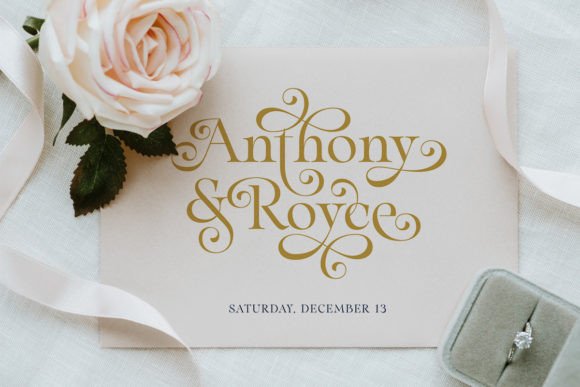
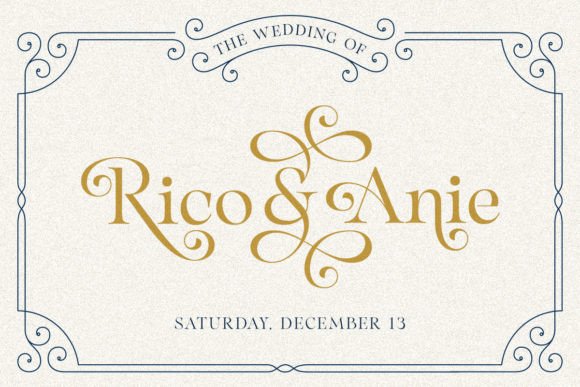
Sparky Dream Font
There is something undeniably romantic about a Serif Font that doesn’t just sit on the page but actually dances. Sparky Dream is exactly that—a timeless typeface that brings a high-end, editorial feel to any project. What really caught my eye are the graceful curly swashes; they add a layer of sophistication that standard serifs often lack.
In my opinion, this is the ultimate choice for wedding invitations or luxury branding where you want to convey «classic beauty» without feeling dated. It’s one of those Serif Fonts that feels equally at home on a high-end perfume bottle or a formal gala program. If you’re looking to elevate your work with an air of effortless elegance and sophistication, Sparky Dream is a versatile powerhouse that delivers every single time.
2. Olive & Citrus Font
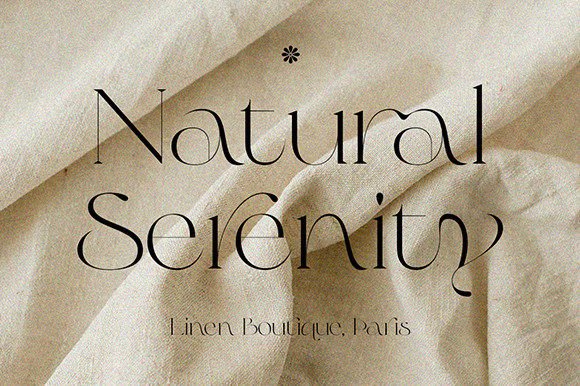
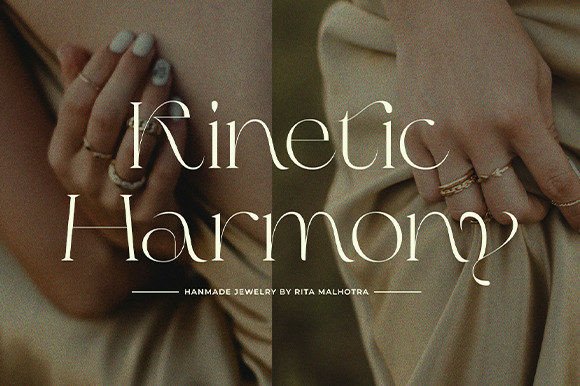
Olive & Citrus Font
If you are looking for a Serif Font that perfectly balances modern minimalism with classic high-fashion vibes, Olive & Citrus is a standout choice. This typeface feels incredibly «clean» yet expensive, making it a dream for branding designs, logos, and high-end magazines. The sharp, refined lines give it a professional edge, while the elegant curves keep it feeling approachable and stylish for social media posts.
What makes this one of the most user-friendly Serif Fonts in this collection is that it’s PUA encoded. This means you can easily access all those stunning glyphs and unique ligatures without needing specialized professional software. Whether you are designing a chic boutique logo or aesthetic packaging for a linen brand, Olive & Citrus provides that polished, «Parisian storefront» look effortlessly.
3. Milk and Honey Font
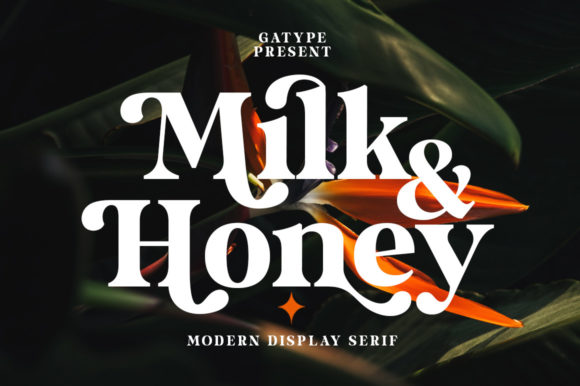
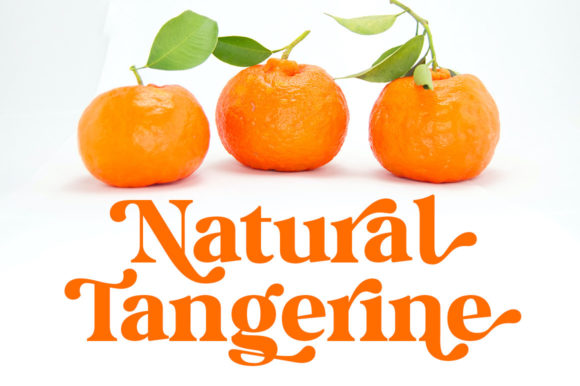
Milk and Honey Font
If you want a Serif Font that screams «modern retro,» Milk and Honey is the absolute gold standard. This is a bold, thick-lettered typeface that manages to feel incredibly trendy while keeping a foot in that nostalgic, 70s-inspired aesthetic. It’s the kind of font that does all the heavy lifting for you—just type out a word, and it already looks like a finished piece of art.
Like our previous favorite, this one is also PUA encoded, giving you full, easy access to all those juicy swashes and extra glyphs that make the letters look like they’re flowing into one another. It’s an incredibly versatile style that works perfectly for eye-catching T-shirt Designs, groovy branding, or even bold social media quotes that need to stop a scroll. If you’re looking to create something spectacular with a «bold and chunky» vibe, Milk and Honey is a must-have for your collection.
4. Montage serif Font
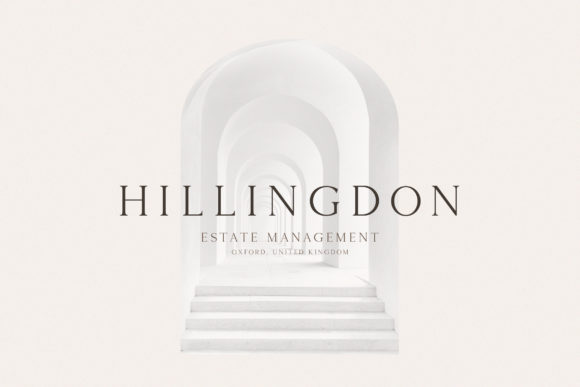
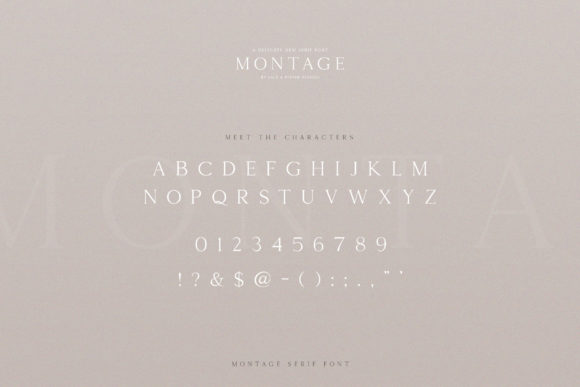
Montage Serif Font
If you are aiming for a look that is whisper-quiet yet incredibly powerful, Montage is the font you’ve been searching for. This is an elegant, authentic, and thin-lettered Serif Font that prioritizes white space and high-end aesthetics. While some serifs try too hard to be noticed, Montage commands attention through its sheer refinement and «less is more» philosophy.
What I love most about this typeface is how it immediately adds a «luxury spark» to any design project. It is the perfect fit for estate management branding, high-end architectural firms, or boutique hotel signage. Because the strokes are so delicate and thin, it creates a sense of airiness and prestige that thicker fonts simply can’t replicate. If your goal is to make a design feel expensive, authentic, and curated, Montage is the sophisticated tool you need in your arsenal.
5. Elegant Serif Font
Elegant Serif Font
True to its name, this Serif Font is the definition of «quiet luxury.» I’m captivated by the smooth, stylish letters and those razor-thin lines that create a stunning contrast with its graceful curves. It’s a sophisticated choice for editorial layouts or high-end branding that needs a classy, timeless aesthetic without being loud.
6. Kind Avenue Serif Font
Kind Avenue Serif Font
What I love about Kind Avenue is its dual personality. At its core, it’s a stylish Serif Font that feels conservative and grounded, making it perfect for long-form body text. However, when you start playing with its ligatures and alternative substitutes, it transforms into a modern, playful masterpiece.
Serif fonts aren’t just a tool; they’re the voice of your design. Whether you’re looking for a quietly luxurious look or a bold vintage vibe, you now have proven solutions for any task.